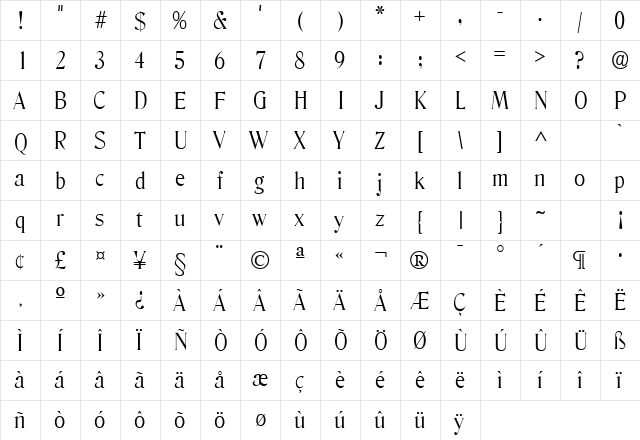
Blue Ridge Light SF Regular
Design Context for Blue Ridge Light SF Typeface
Blue Ridge Light SF offers clean, dependable letterforms without strong stylistic allegiance, making it a practical choice for designers who need flexibility. Its slender proportions lend an understated elegance to any composition.
Pro Tip: Pair Blue Ridge Light SF with a font of contrasting weight or personality to build a more expressive typographic hierarchy.